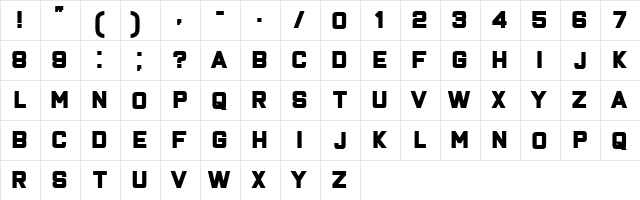
Closeness Bold
Design Context for Closeness Typeface
Closeness is a composed and adaptable typeface that performs quietly and consistently across a wide range of design contexts. The heavy weight commands attention and anchors typographic hierarchies.